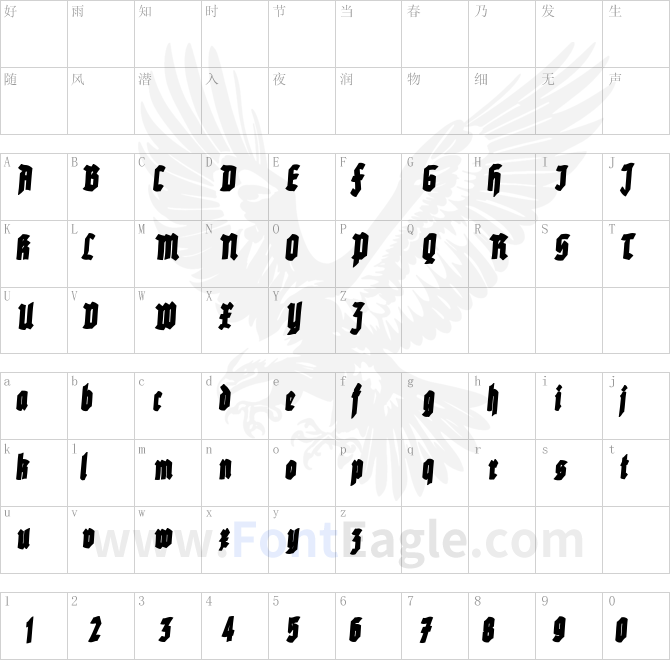
- Font name:RottenScript
- Font Subfamily ID:RottenScript
- Font Full Name:RottenScriptTight
- Font Version:1.0 2002-01-27
- Postscript:RottenScriptTight